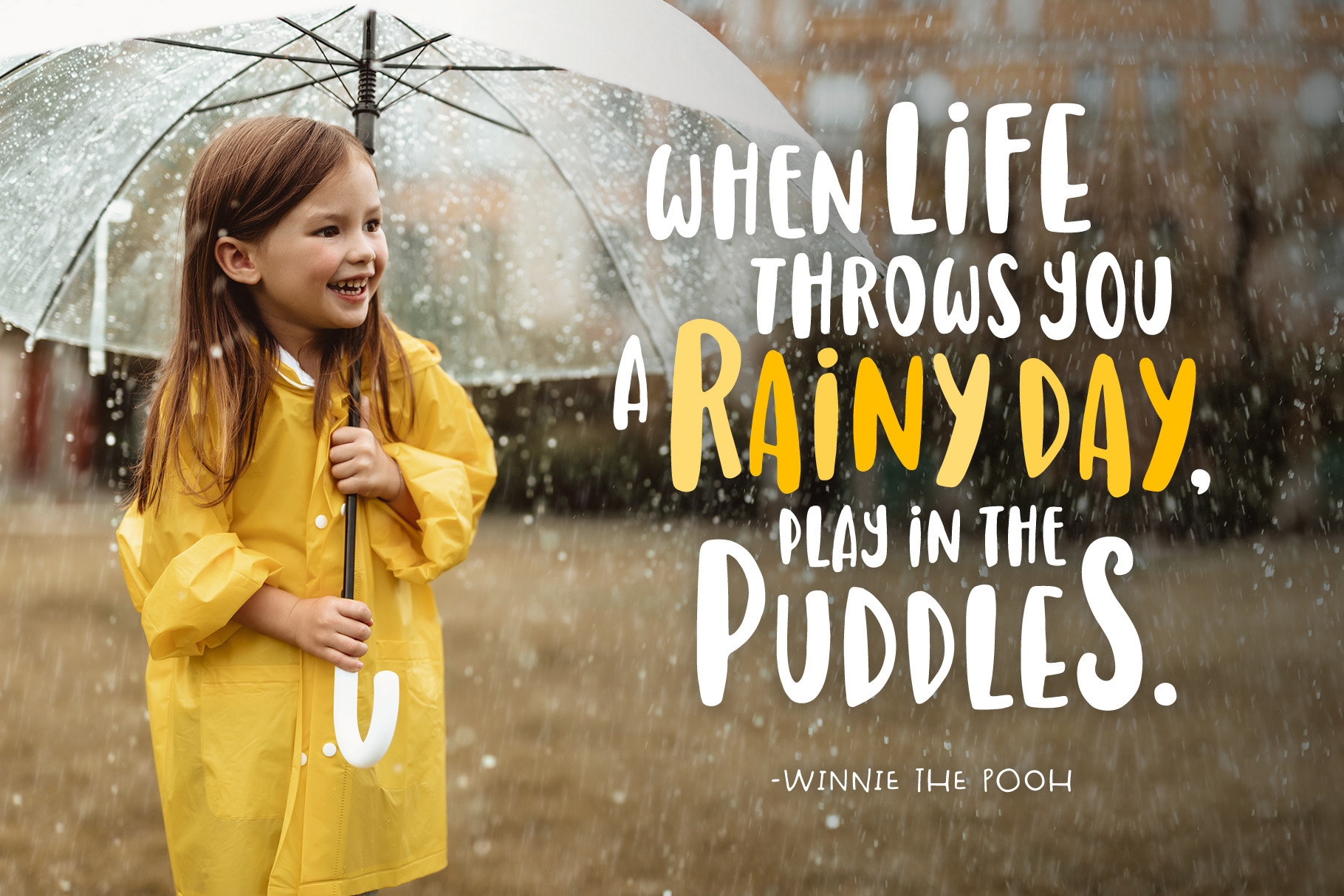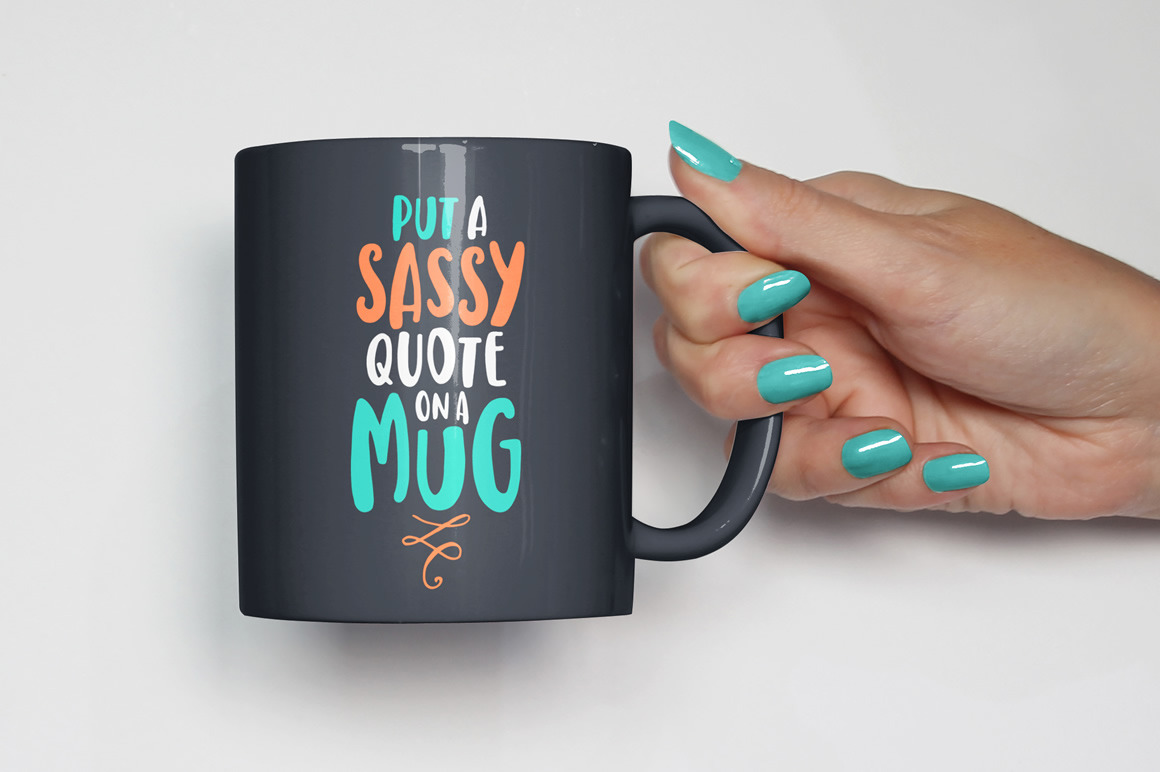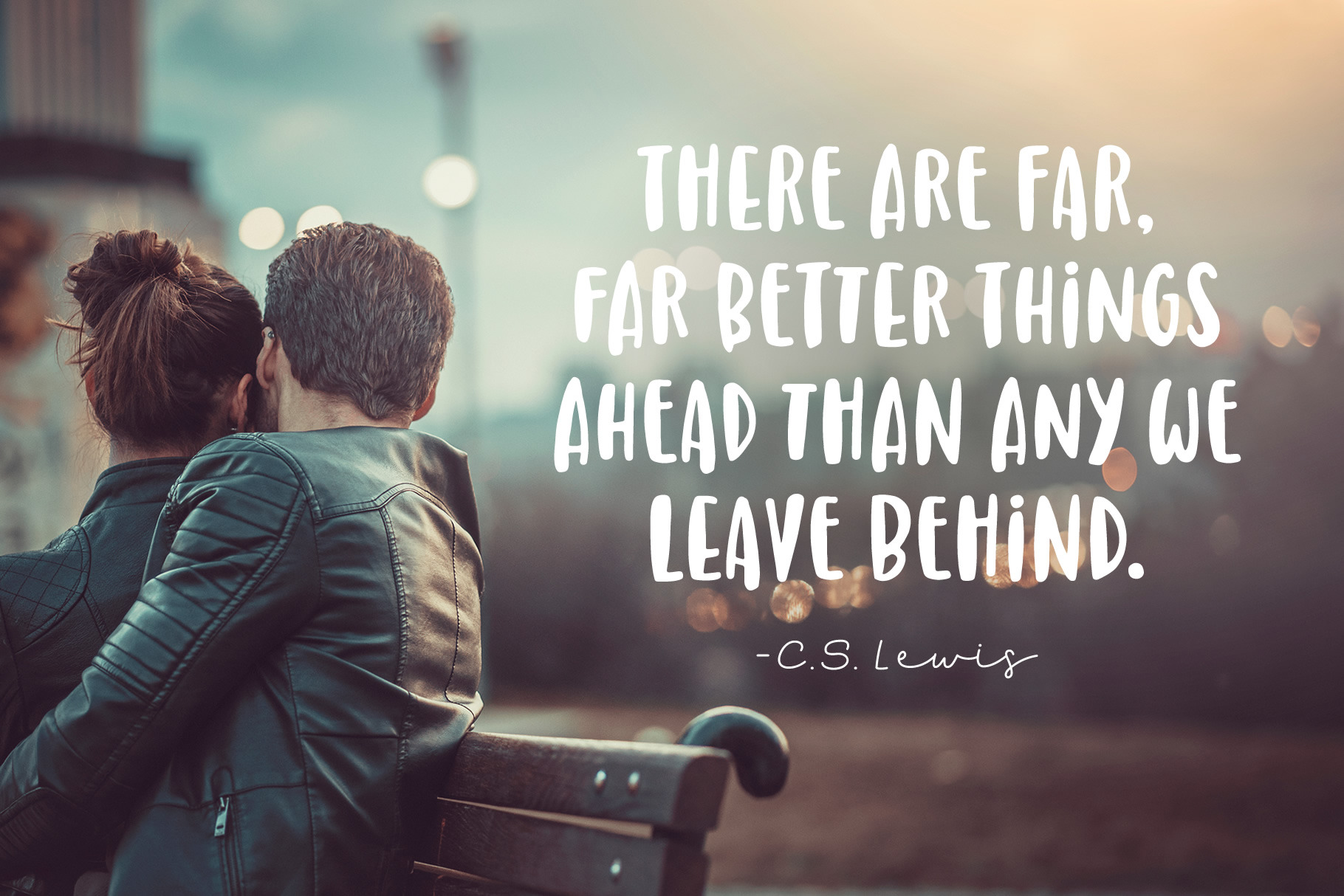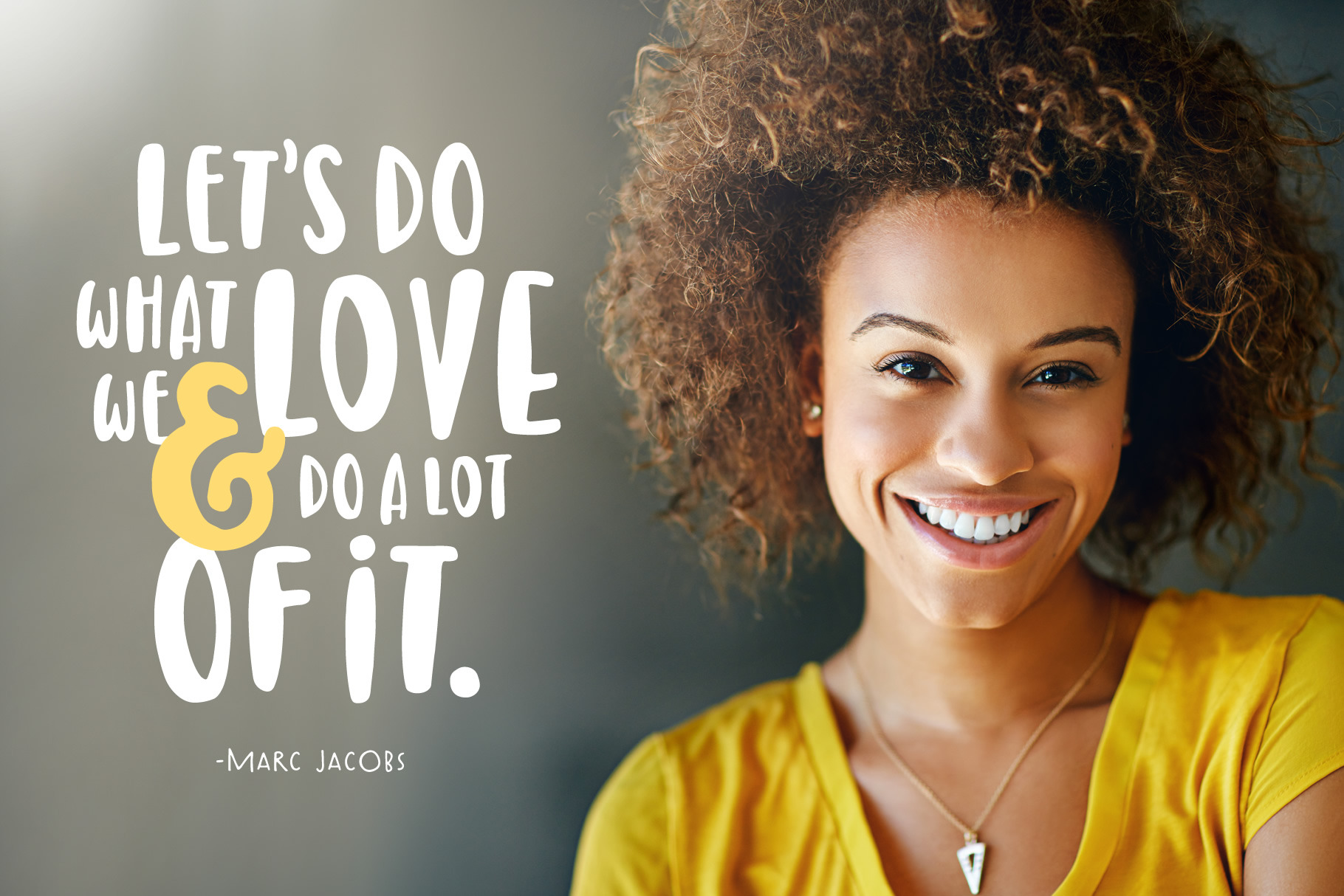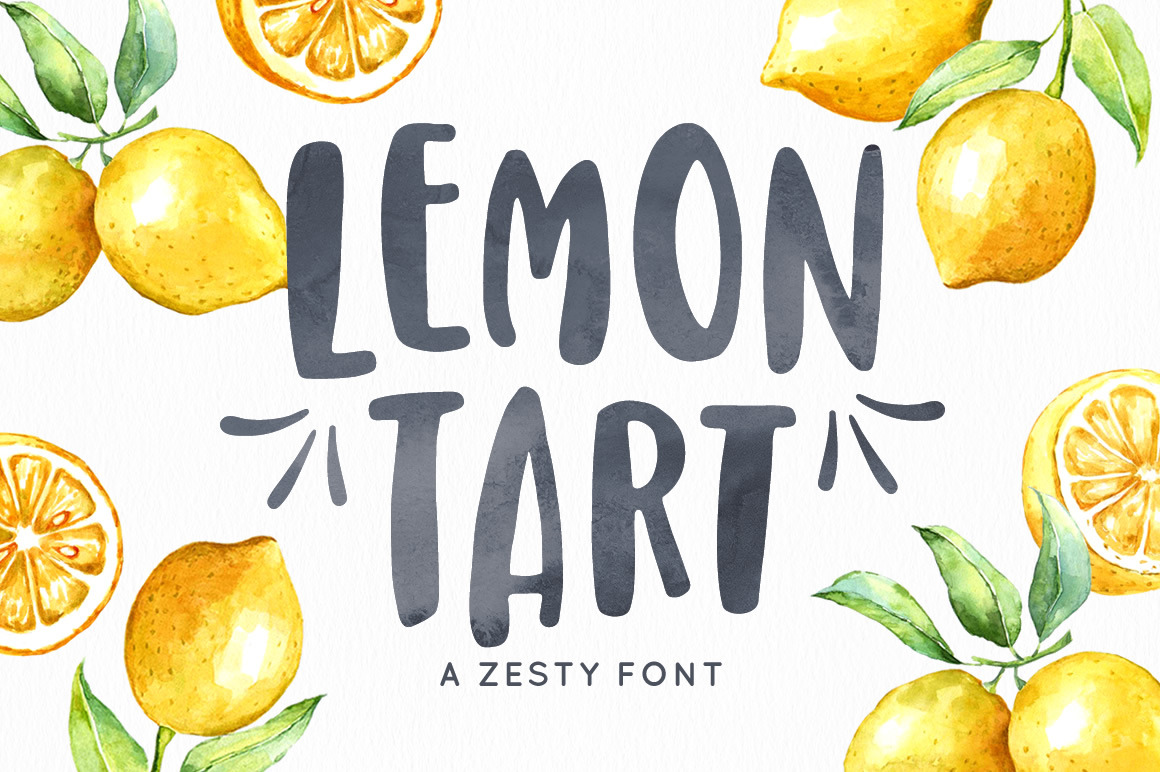
Lemon Tart is a sweet, hand-drawn, sans serif. It is an all-caps font which includes 2 variations of each uppercase letter (accessed with upper and lowercase keys). It has a condensed and bold style that can make a statement on any project. - Files Included: - Lemon Tart in OTF and TTF format - Watercolor lemons can be found here: https://crmrkt.com/re3KWx | Lemon Tart Font | Denise Chandler